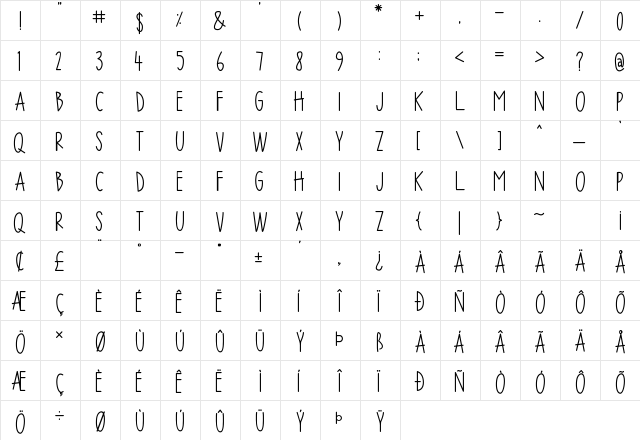
GOOD LUCK ! Regular
Design Context for GOOD LUCK ! Typeface
GOOD LUCK ! takes a measured approach to typography — its balanced proportions and neutral character make it a reliable workhorse for both digital and print work.